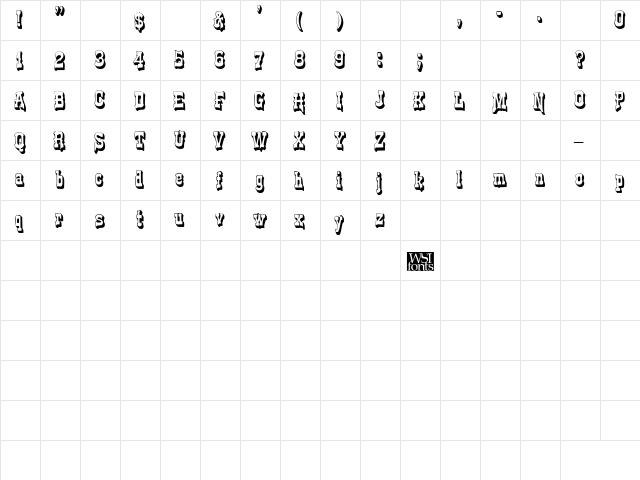
WesternShadow Regular Font Preview
WesternShadow Regular
Design Context for WesternShadow Typeface
WesternShadow echoes the hand-painted signage and woodblock typography of the American frontier, with a warm, rugged personality.
A natural fit for craft spirits, ranch branding, rodeo events, and Americana-inspired design work.
Font Pairing: Combine WesternShadow with a simple slab or neutral sans — period-accurate companions reinforce the vintage feel without competing for attention.
Pro Tip: Use WesternShadow for short, impactful bursts of text — it shines in poster headlines and product names rather than extended copy.